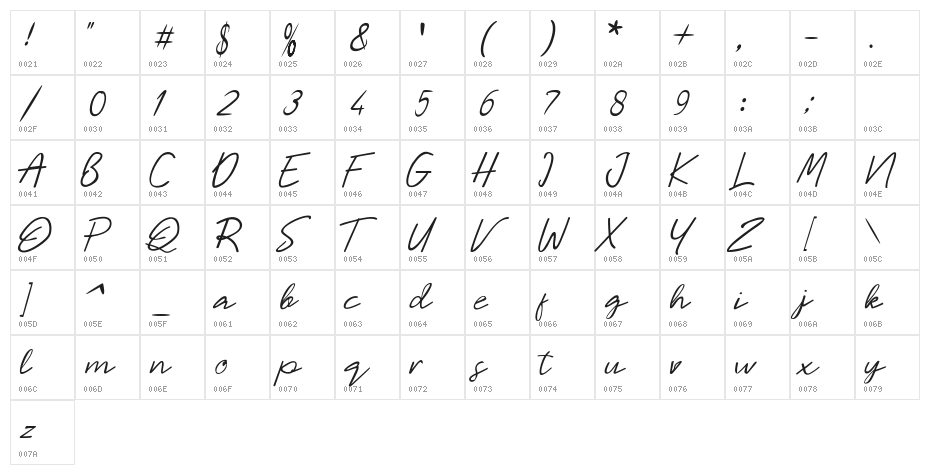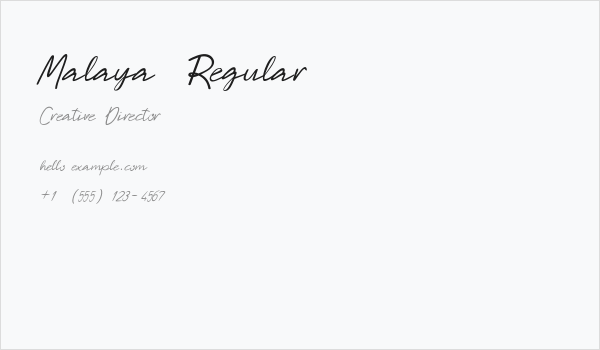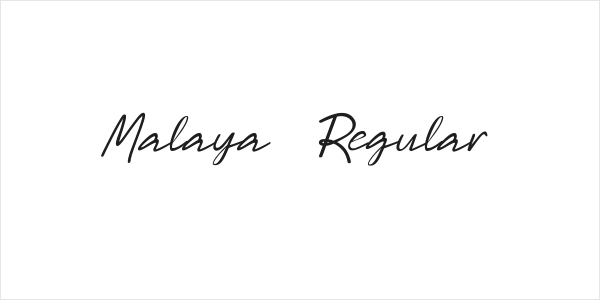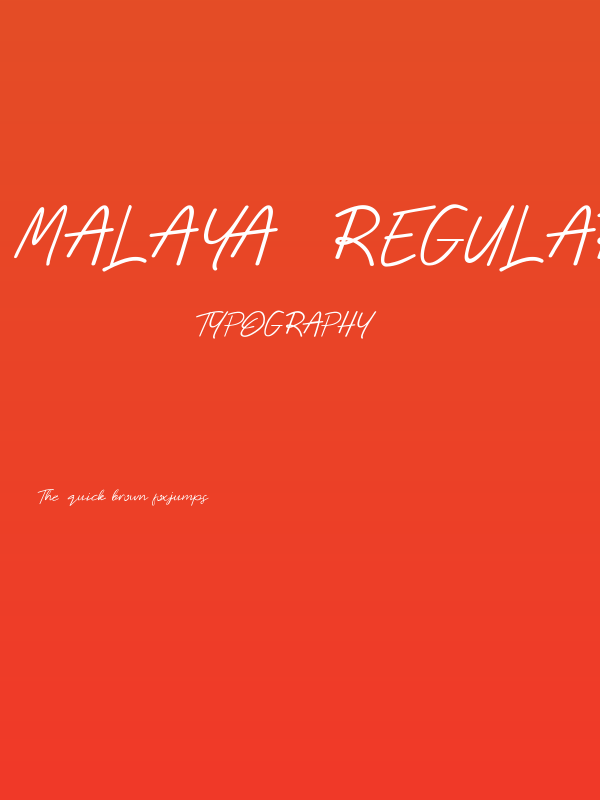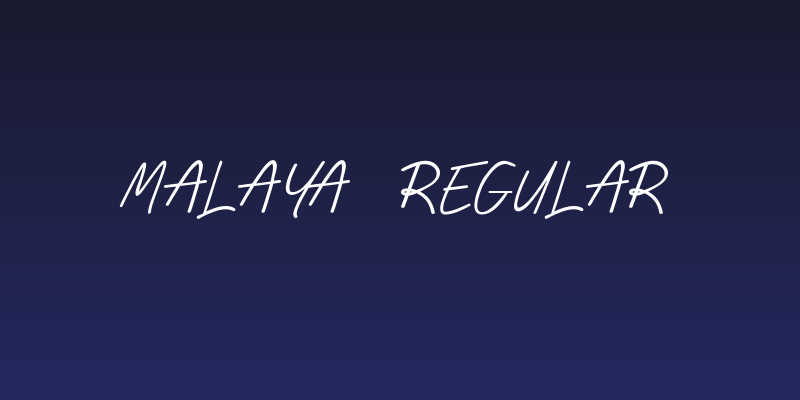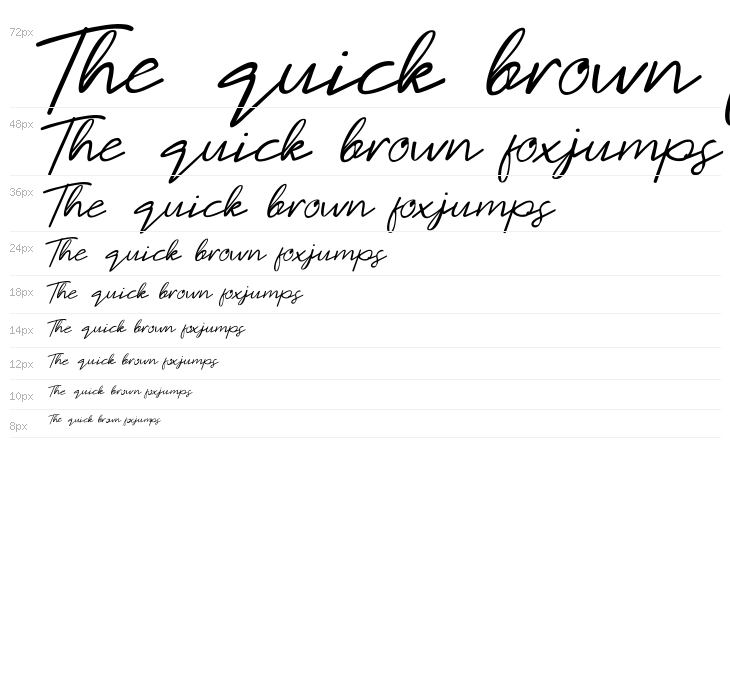
Malaya Regular Font
Malaya Regular Description
This font exudes a casual yet elegant handwritten style, characterized by smooth, flowing lines and a natural, organic feel. The letters are slightly slanted, giving a sense of motion and fluidity. The uppercase letters are bold and prominent, while the lowercase letters maintain a consistent style with a slightly smaller size. The numerals are clear and easy to read, matching the overall aesthetic of the alphabet. Special characters are well-integrated, maintaining the font's cohesive look. The strokes are consistent in thickness, providing a harmonious appearance across all characters.
| Proposed Projects | Ideal for personal branding, wedding invitations, greeting cards, and creative projects that require a personal touch. |